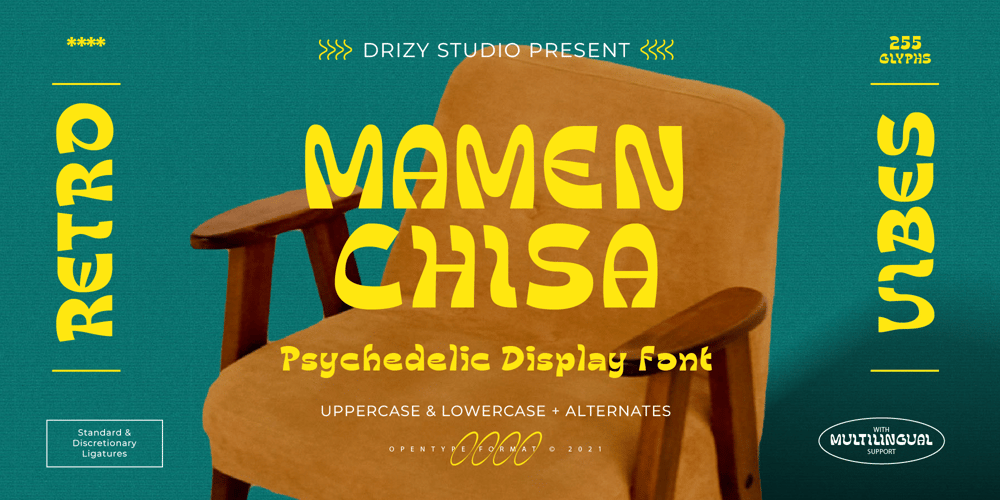
Mamenchisa Font Family was designed by Panca Ahmadi Hasan and published by Drizy Font. Mamenchisa contains 1 styles and family package options. Mamenchisa – Psychedelic Display FontIntroducing Mamenchisa! A beautiful Psychedelic Display Font from Drizy! This is a unique display typeface perfect for gorgeous logos & titles.Mamenchisa Features : Multilanguange Ligatures Do not hesitate to contact me if you have any questions about this product. Hope you like it and enjoy